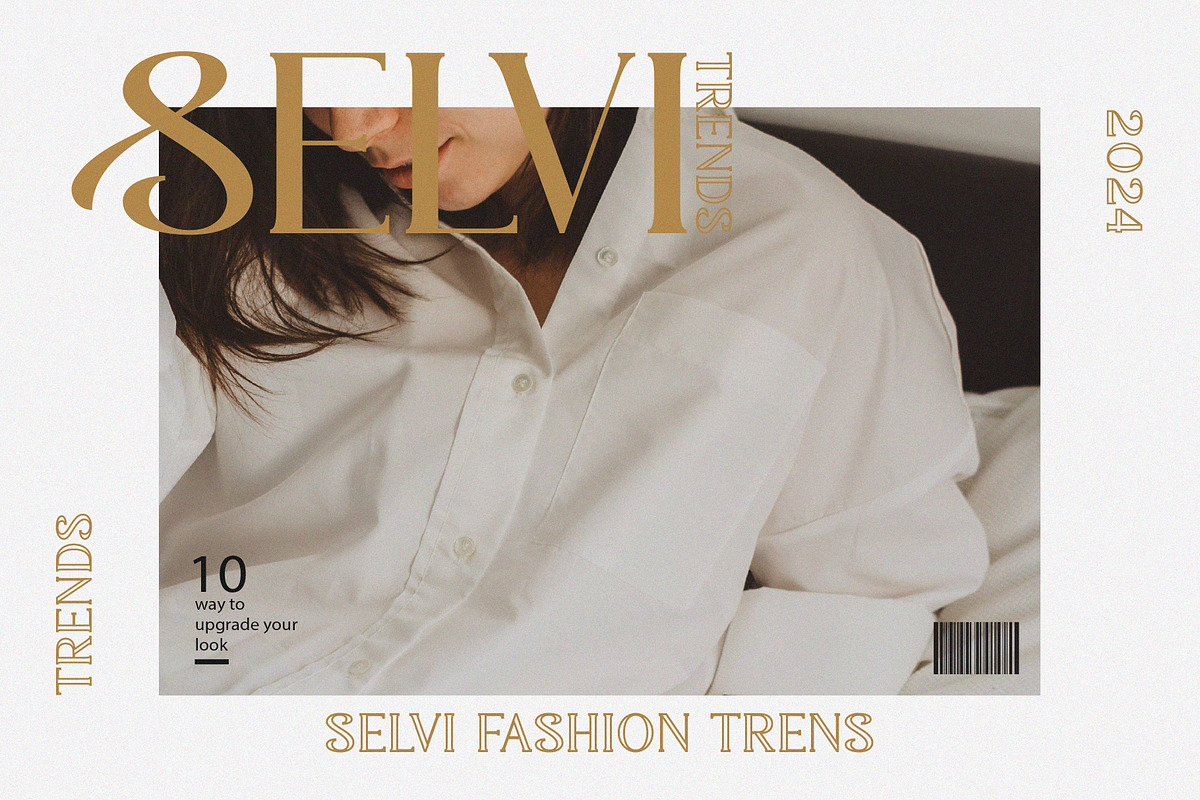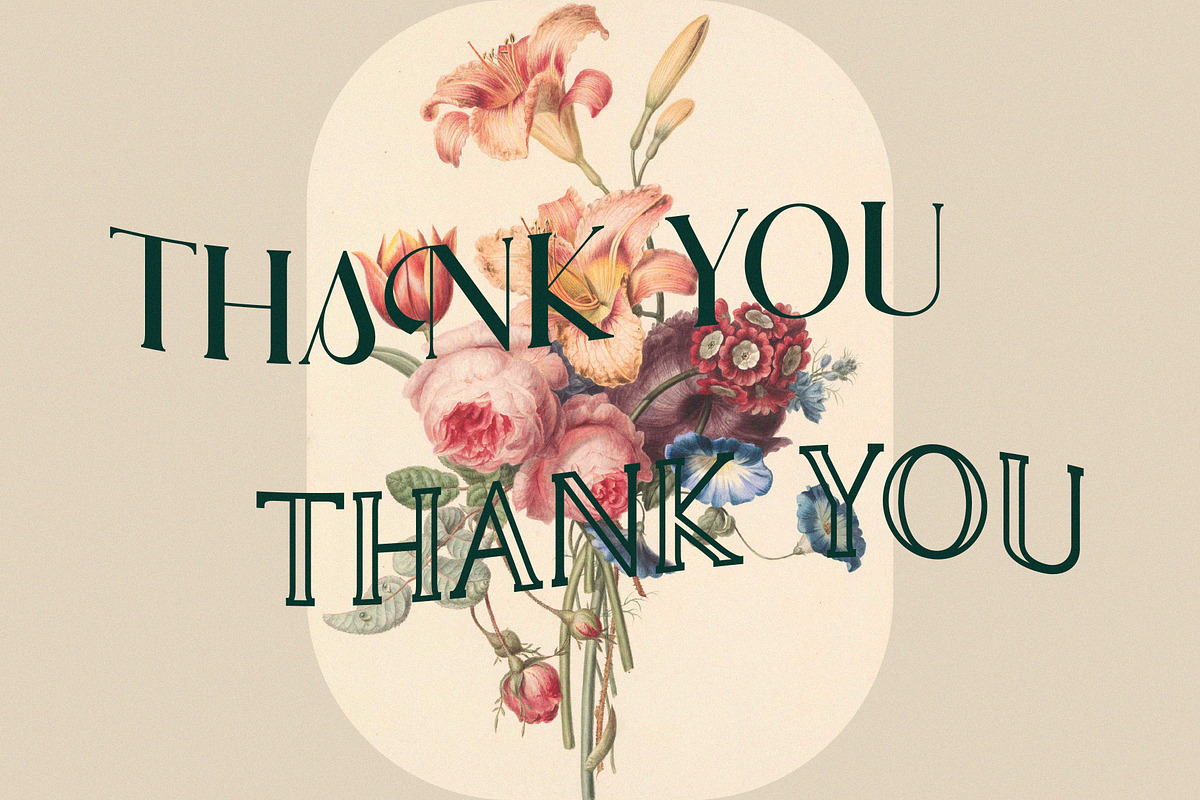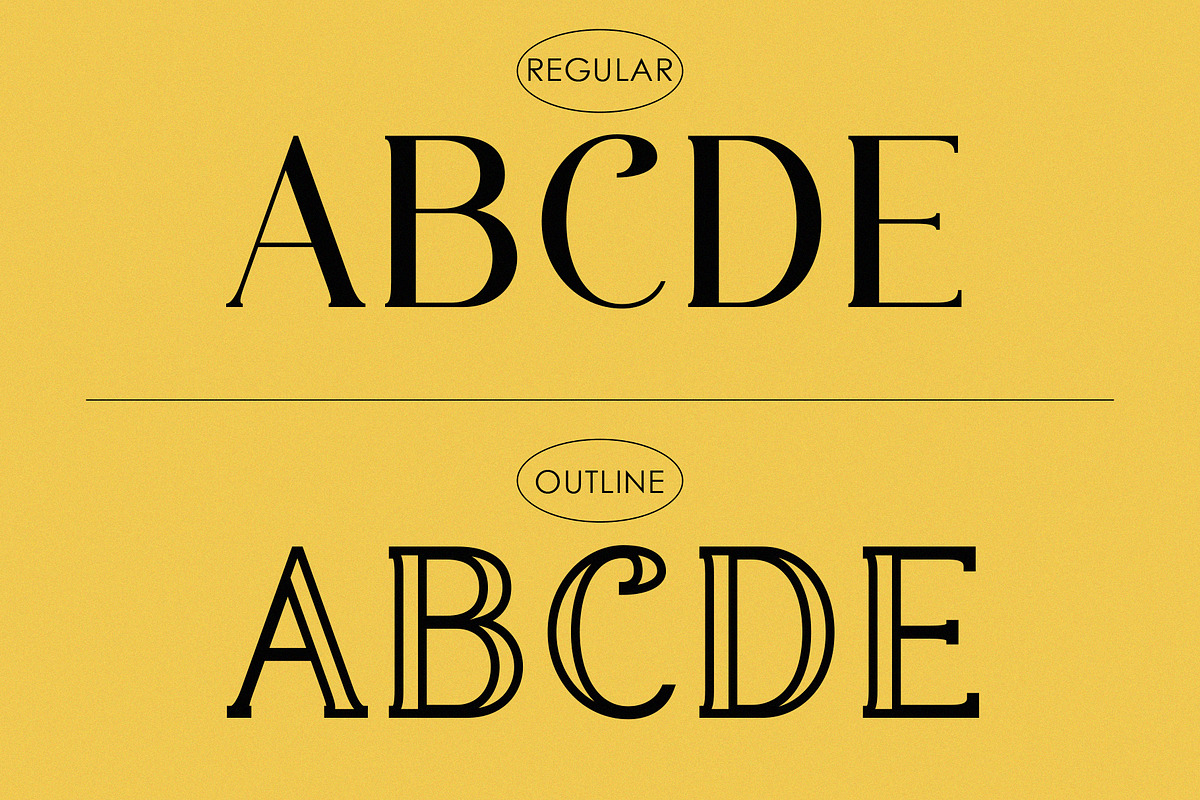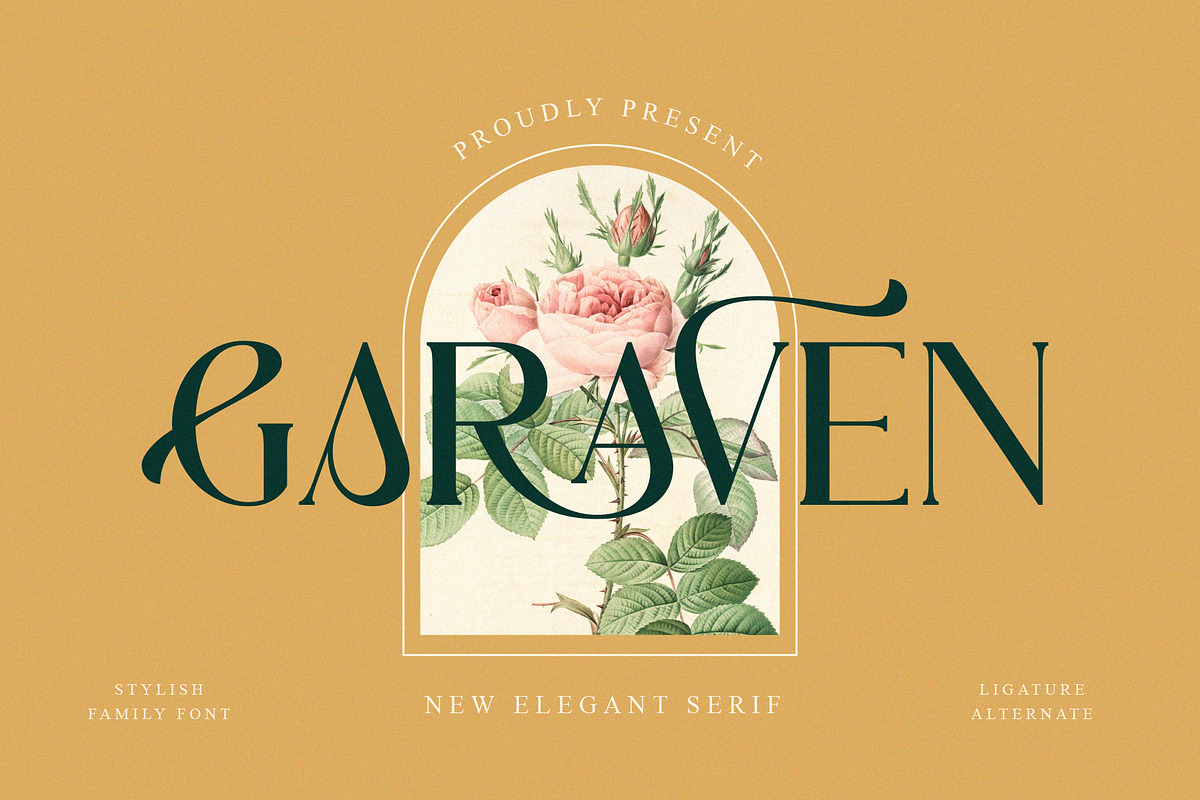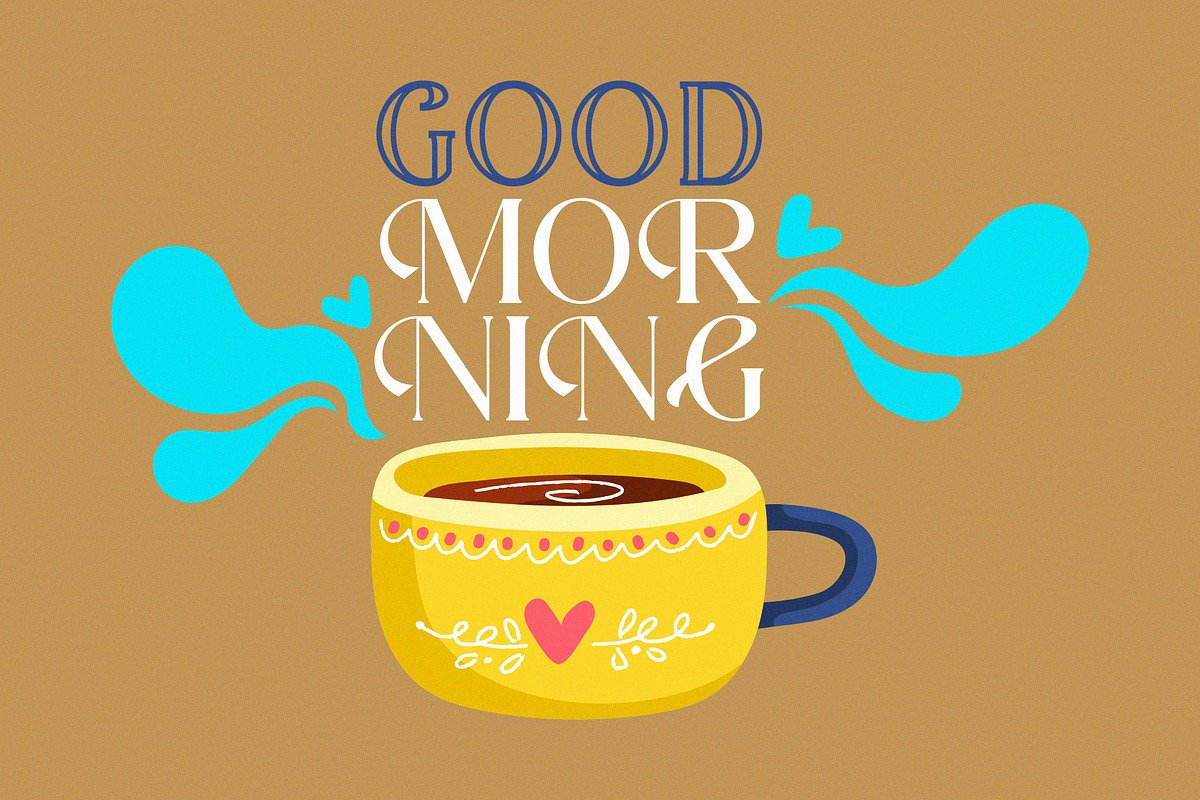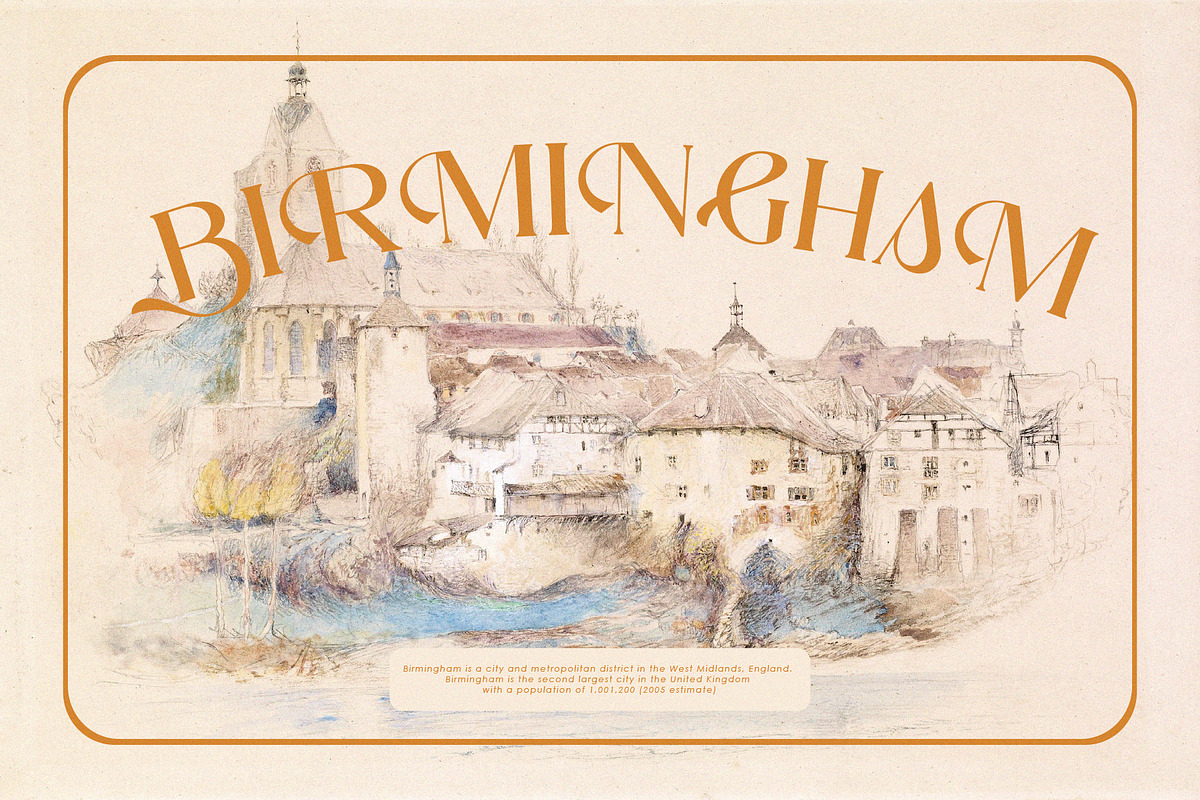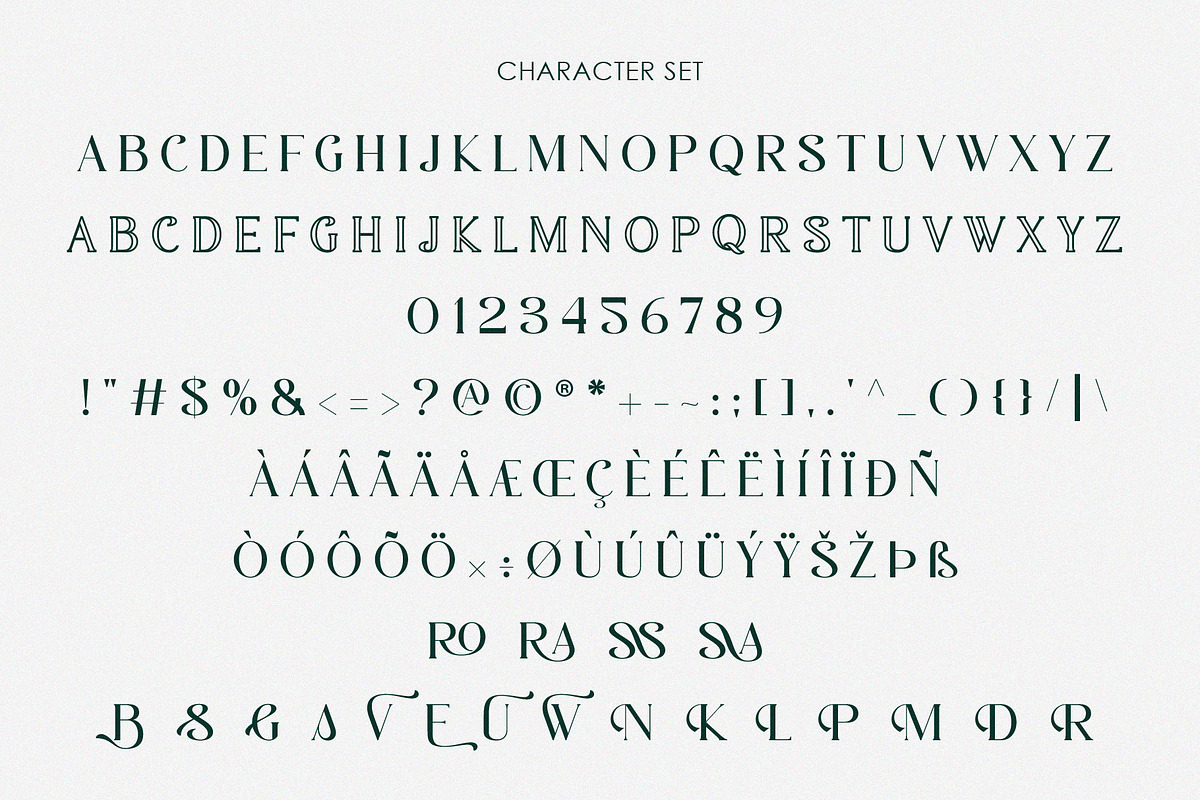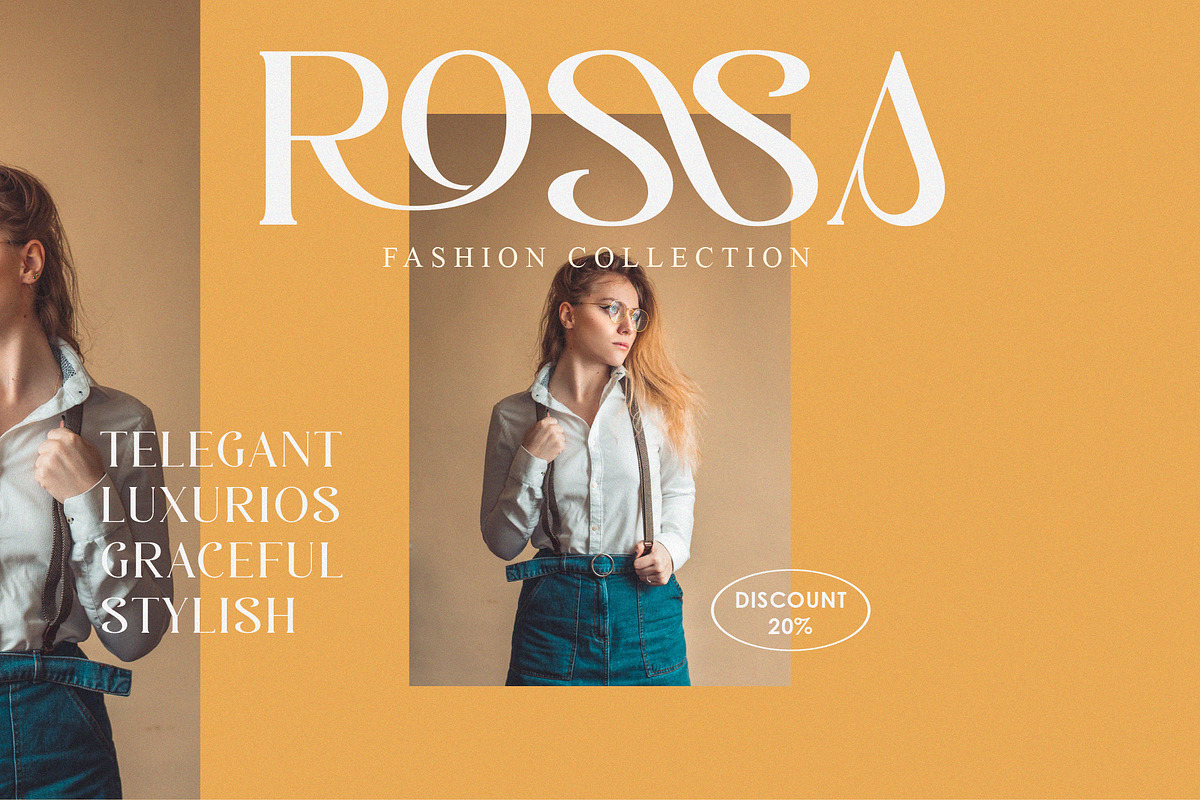
GARAVEN
Introducing GARAVEN: An elegant and modern serif typeface. And also a family font. With its modern and minimalist appearance, GARAVEN brings a luxurious and clean style to your projects such as websites, modern logos, branding identities, social media quotes, wedding stationery and various other needs!
GARAVEN displays unique capital letters A to Z and also provides two versions, namely regular and outline and also classy of course because it is made with great care so that it becomes a beautiful font and can be adapted to various large projects that you want.